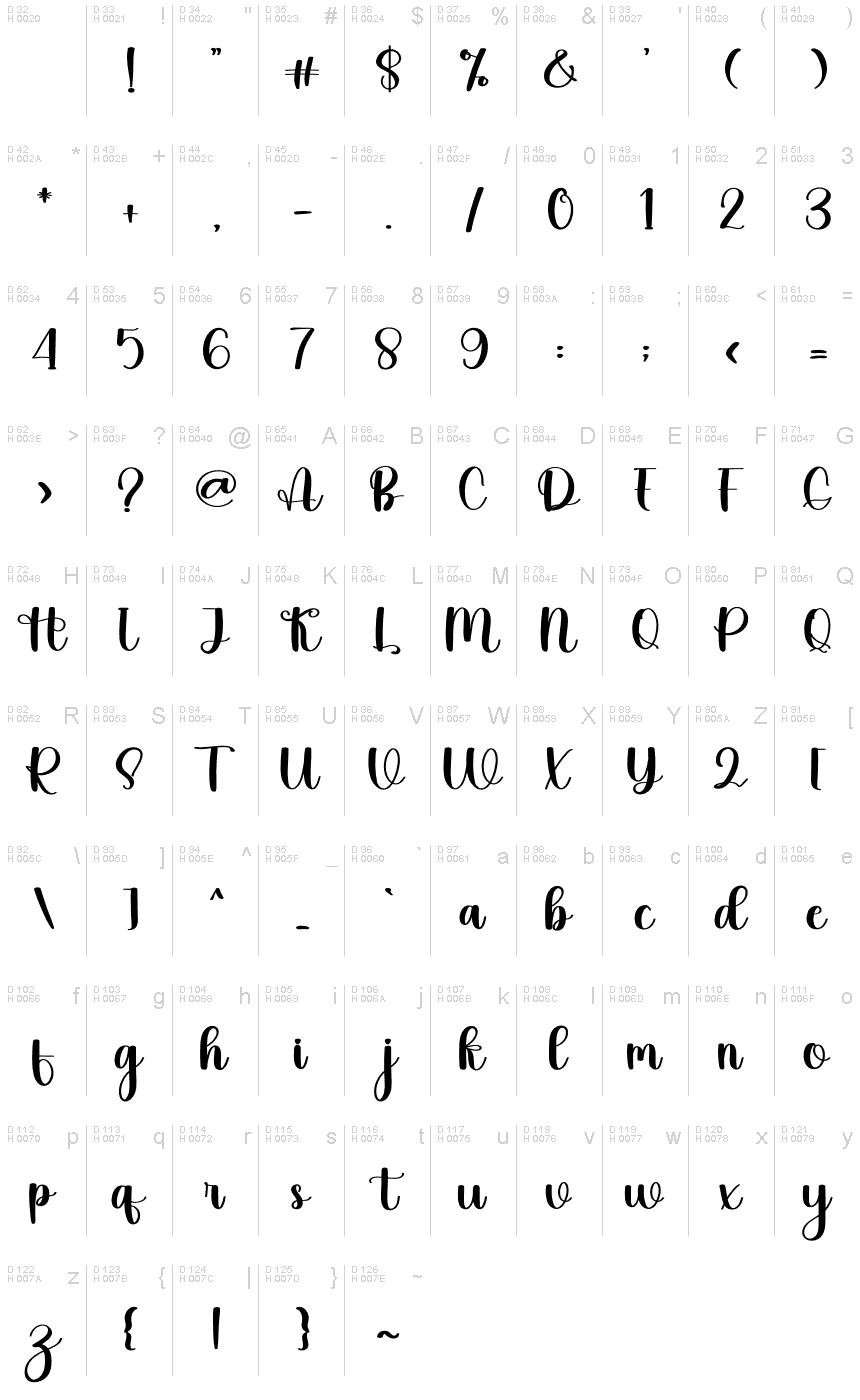
Rabbles
Rabbles, a lovely handwritten font by Inermedia Studio, brings warmth and charm to your projects. With its semi-bold weight, this typeface strikes the perfect balance between elegance and readability.
Ideal for wedding invitations, greeting cards, and love-themed designs, Rabbles adds a touch of romance to any project. Its flowing lines and graceful curves create a sense of whimsy that captures the essence of handwritten notes. Whether you're designing a heartfelt message or crafting an enchanting logo, Rabbles is the perfect choice for bringing your words to life in a delightful way.